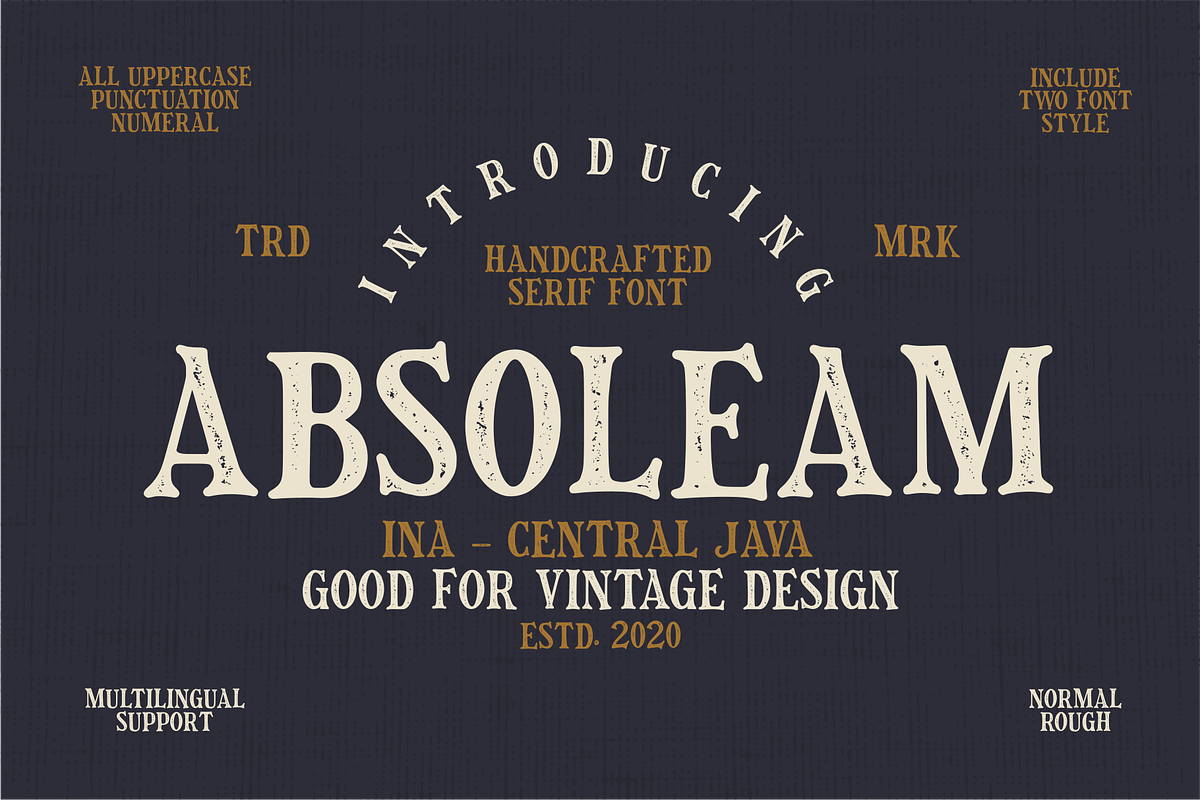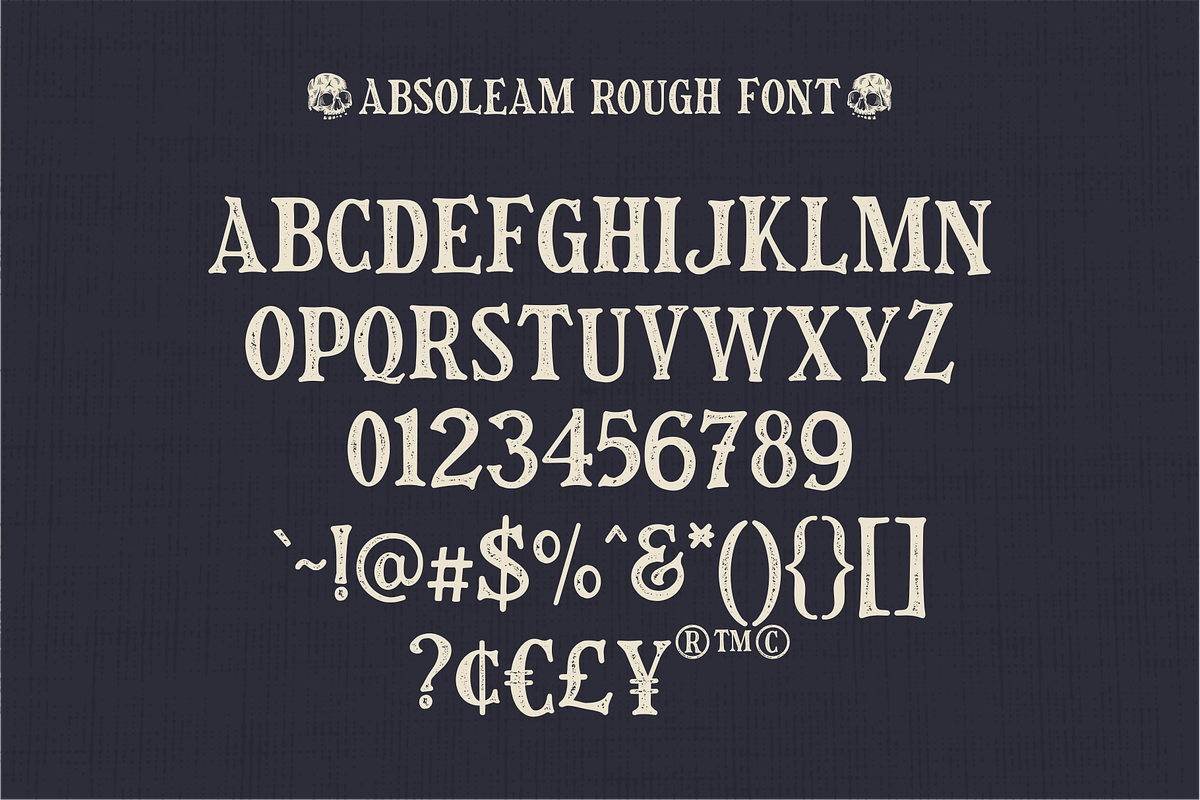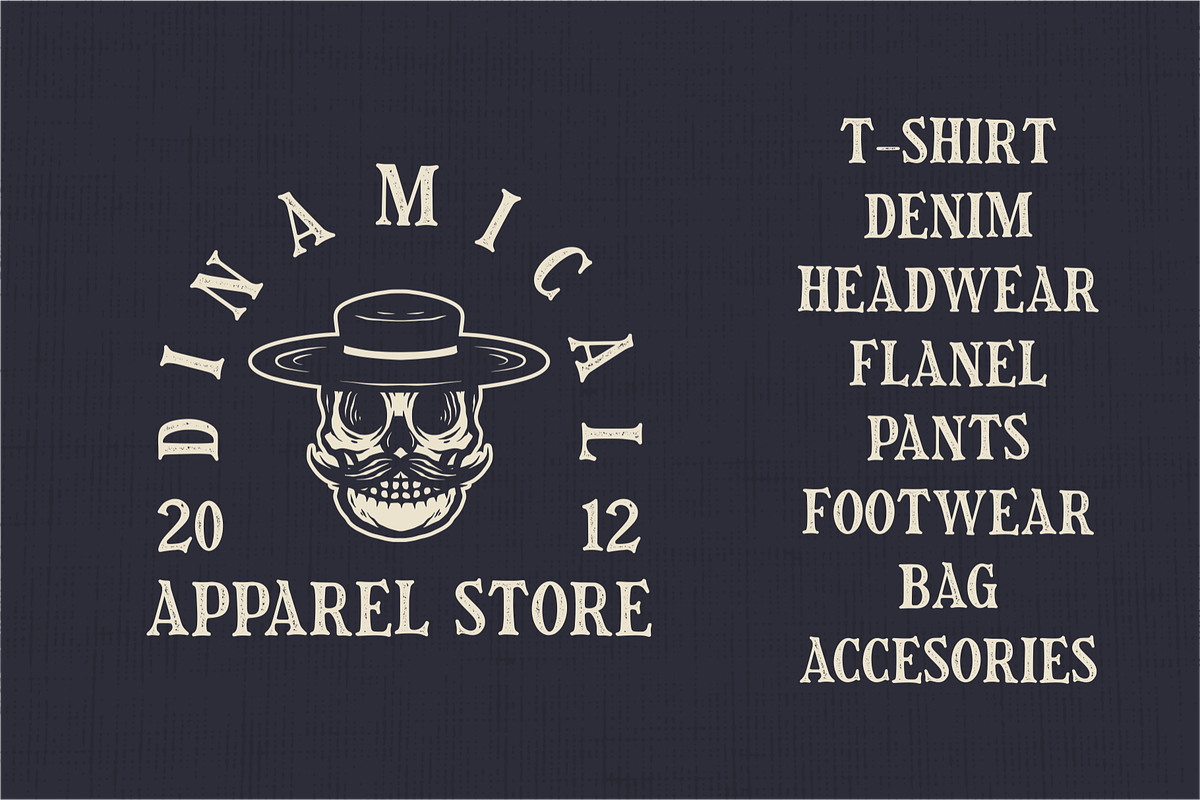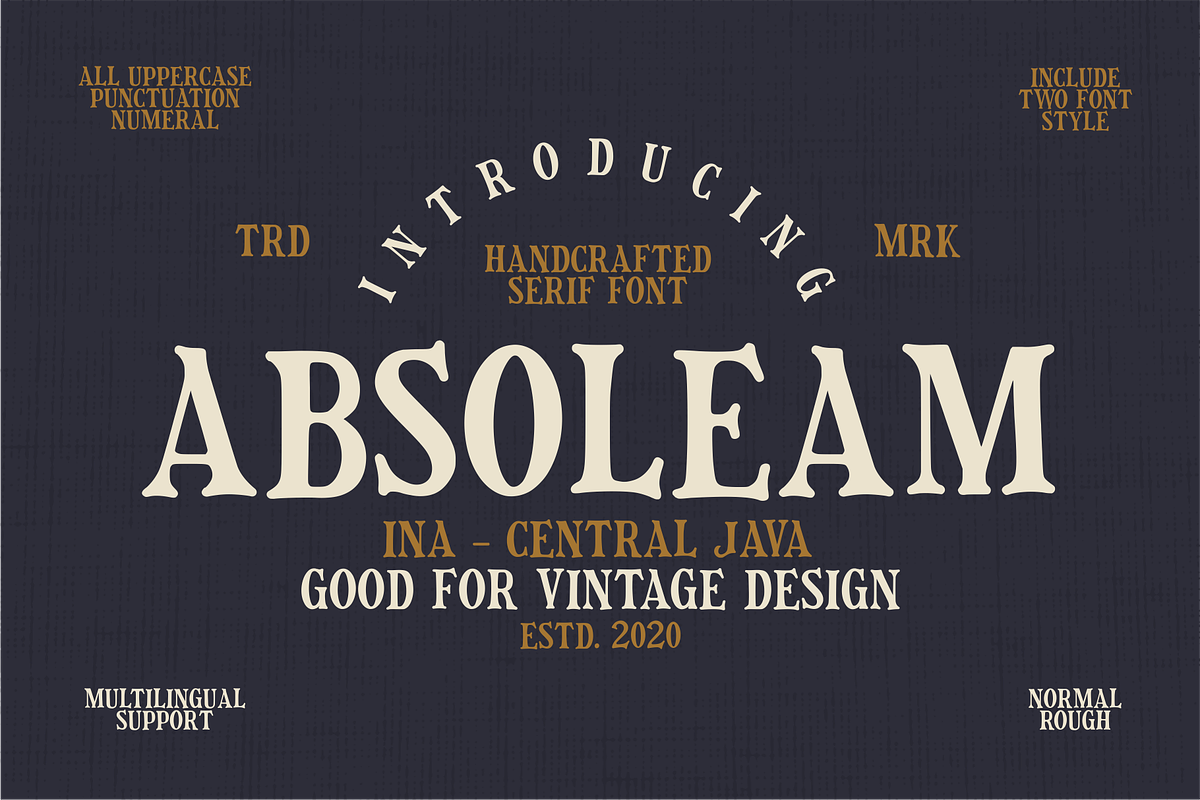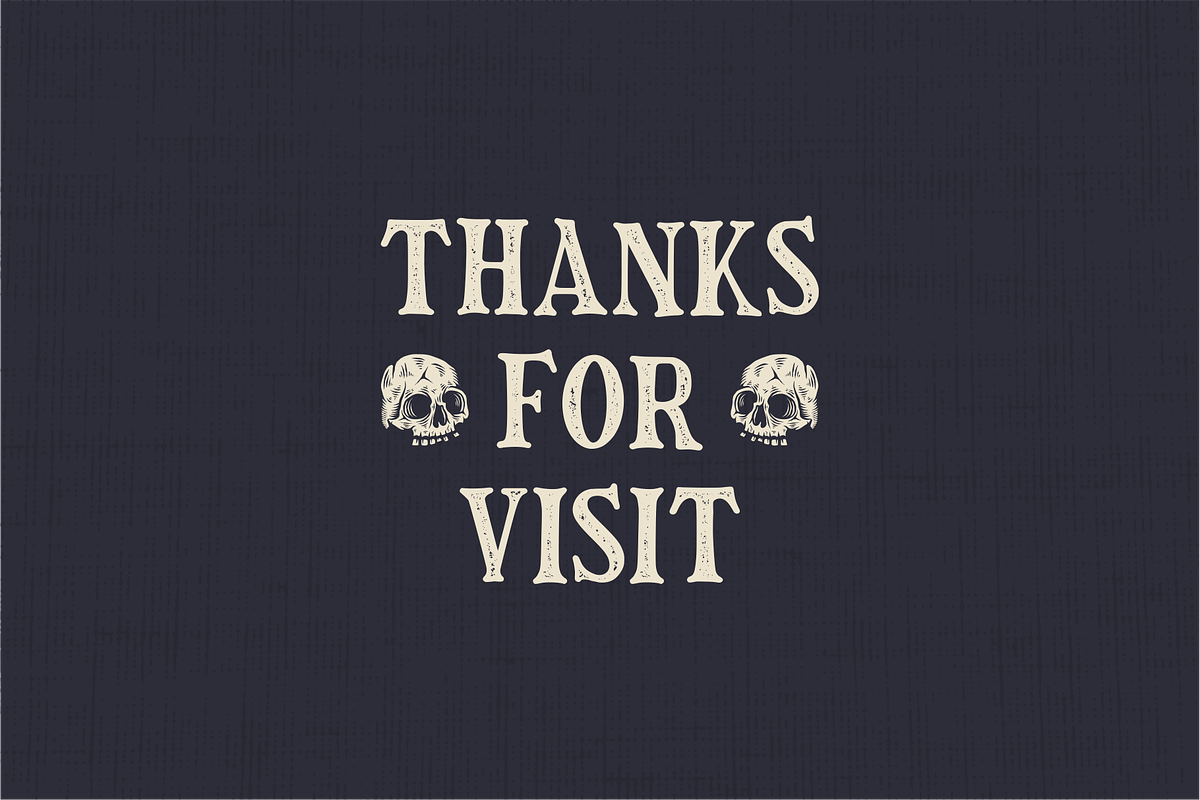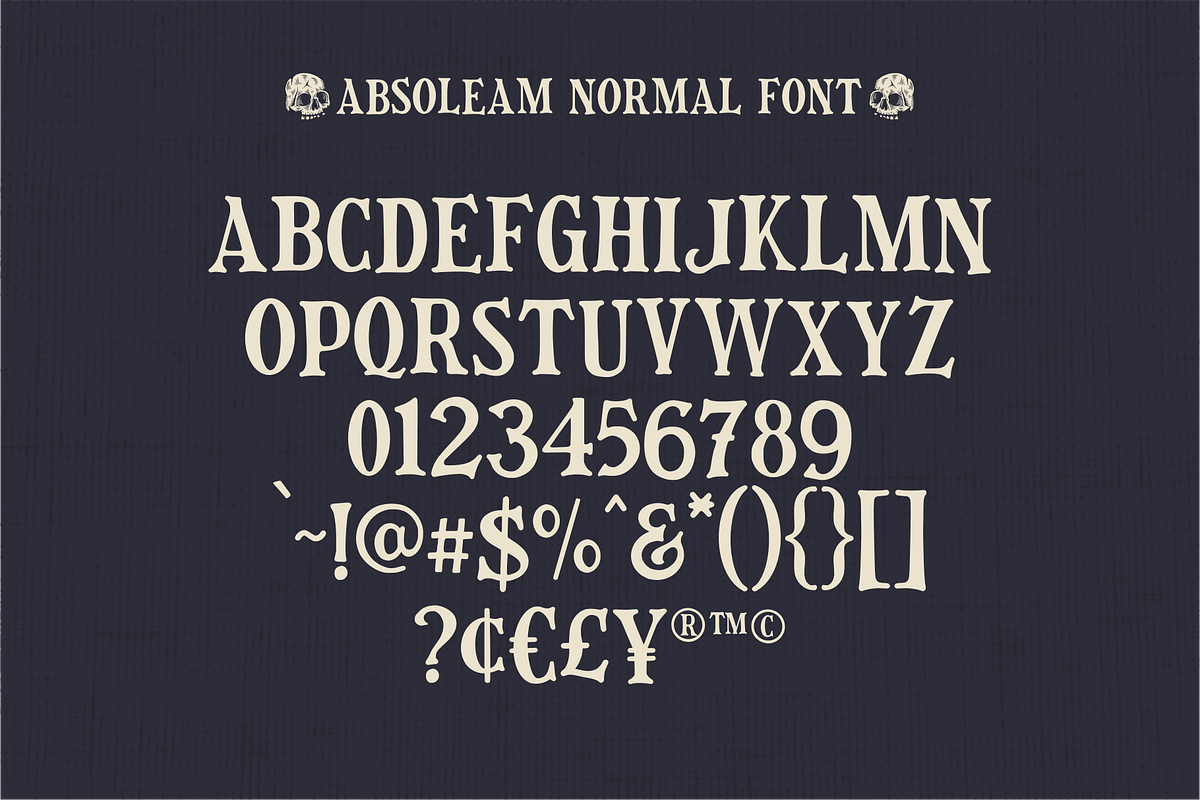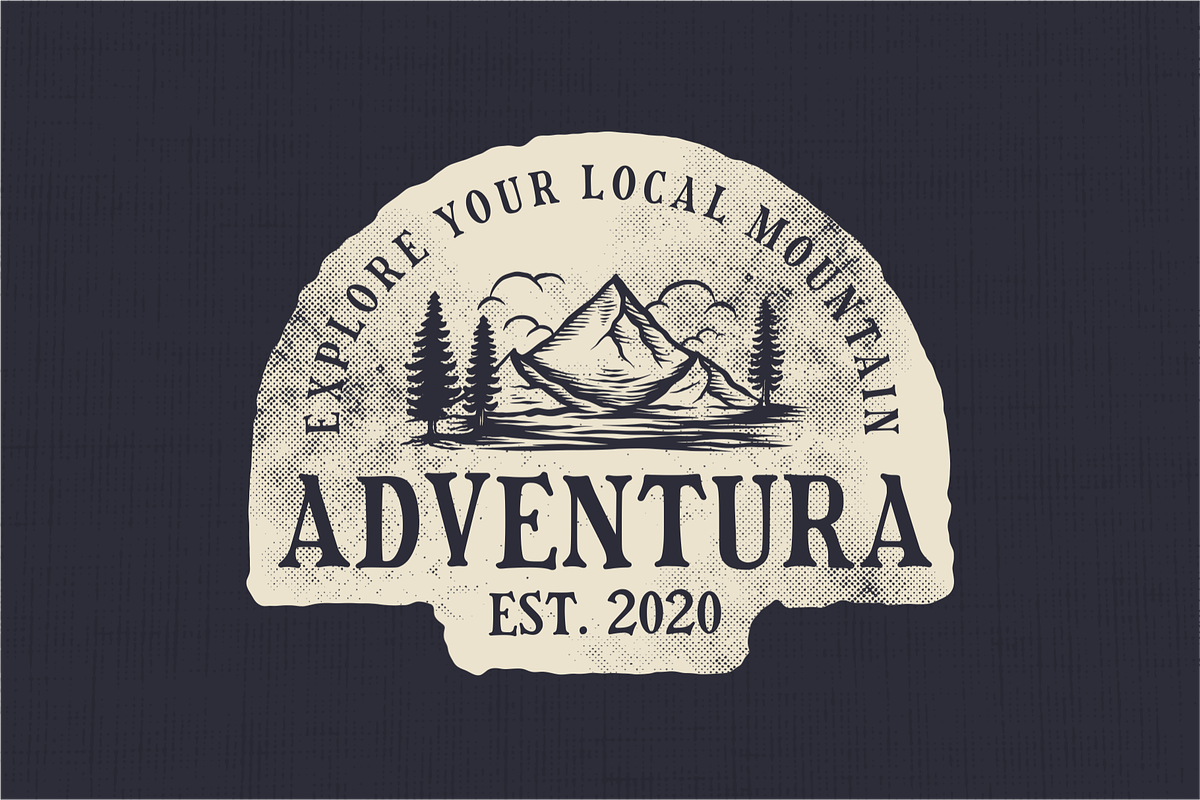
Absoleam Vintage Rough
Absoleam is a rustic font suitable for designs that require a vintage and classic feel to be applied to logos, posters, screen printing, design labels, etc. This font include 2 style.
- All Uppercase